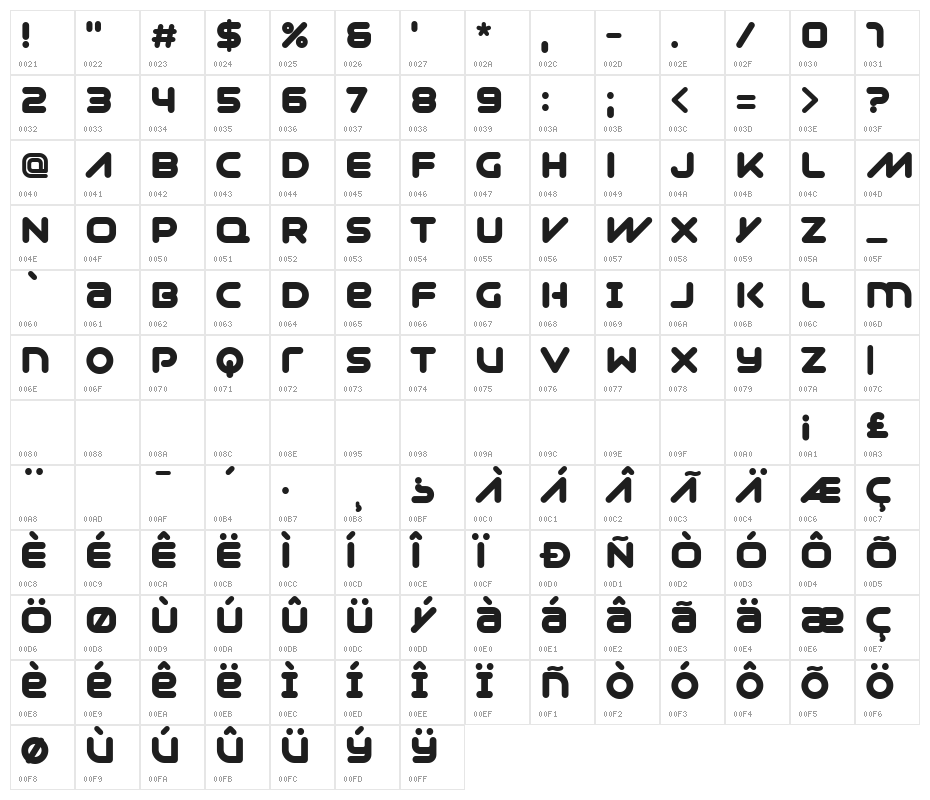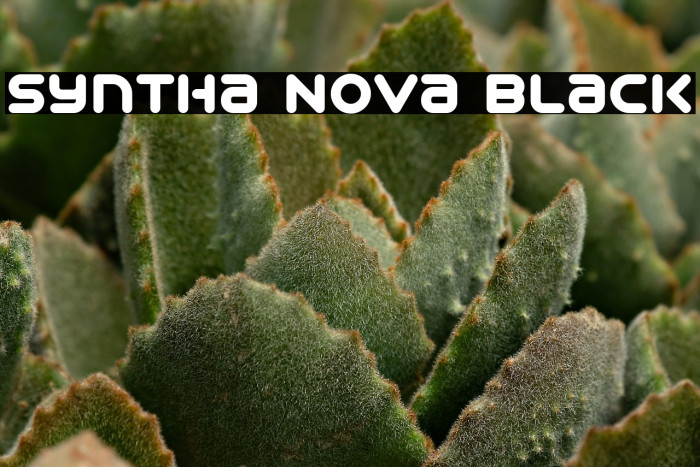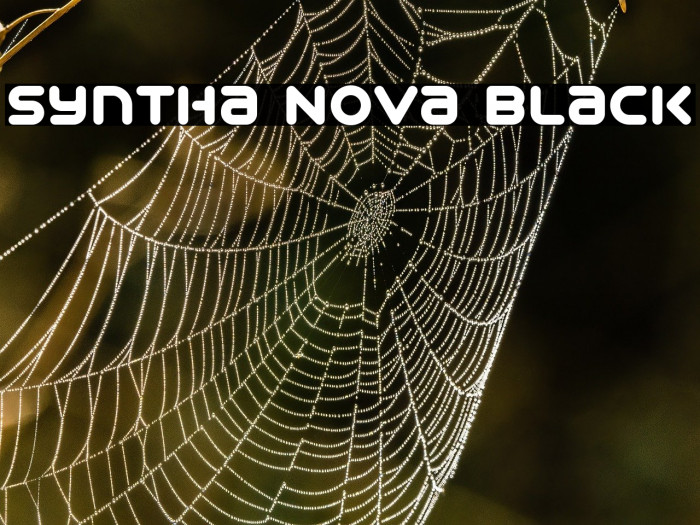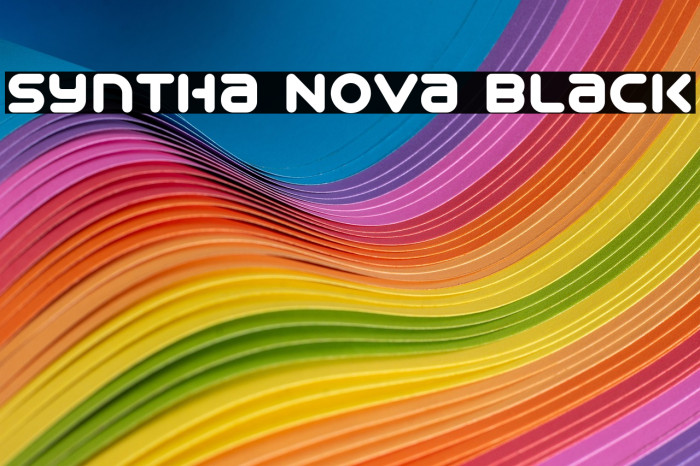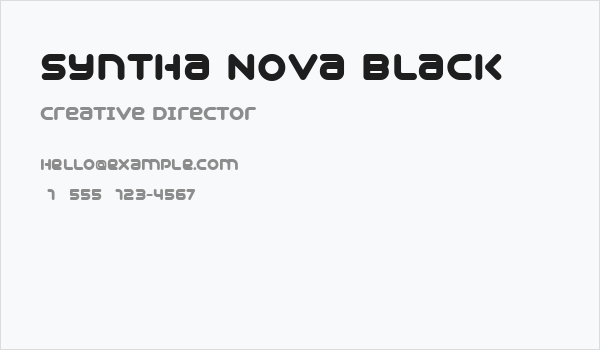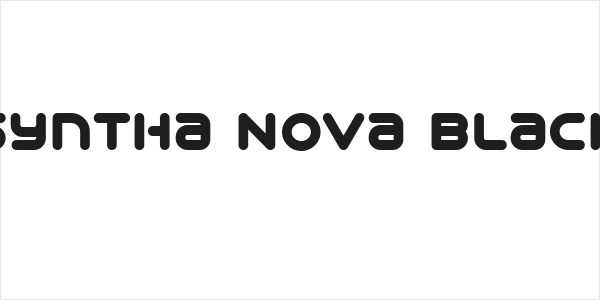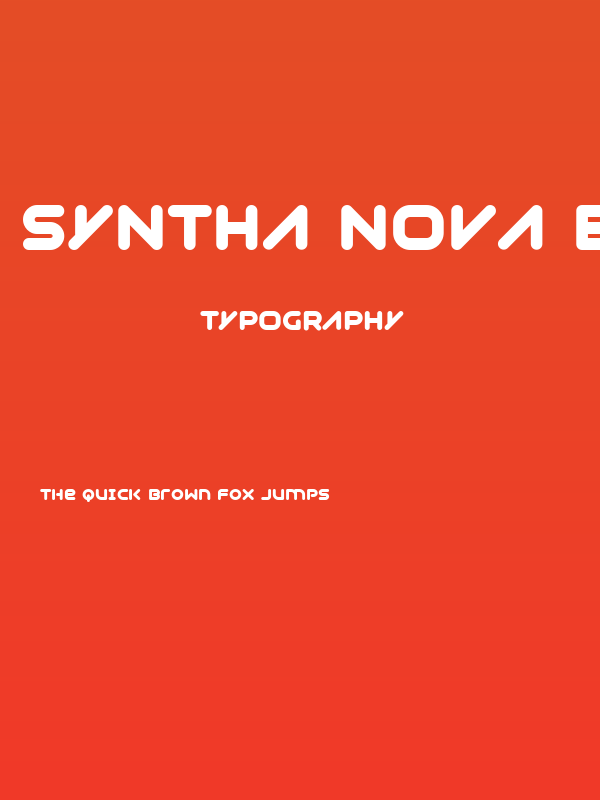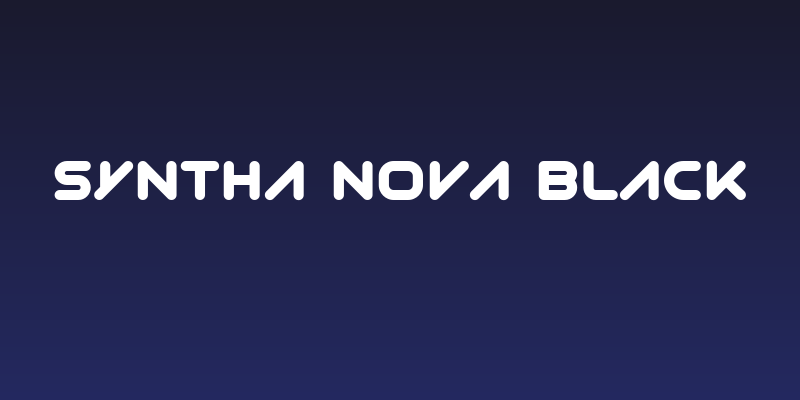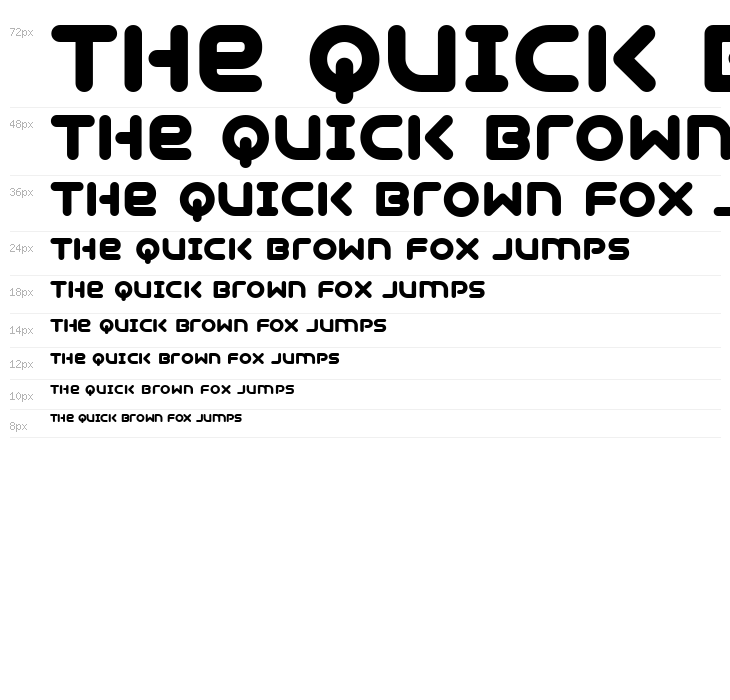
Syntha Nova Black Font
Syntha Nova Black Description
This font exhibits a bold, futuristic style with rounded edges and a geometric structure. The characters are evenly weighted, creating a uniform appearance that is both modern and sleek. The uppercase and lowercase letters maintain a consistent design, with smooth curves and straight lines that give a sense of precision and clarity. The numerals and special characters follow the same design principles, ensuring a cohesive look across all elements. The font's boldness and unique style make it stand out, while its readability remains intact.
| Proposed Projects | Ideal for technology branding, sci-fi themed projects, video game interfaces, and modern advertising. |